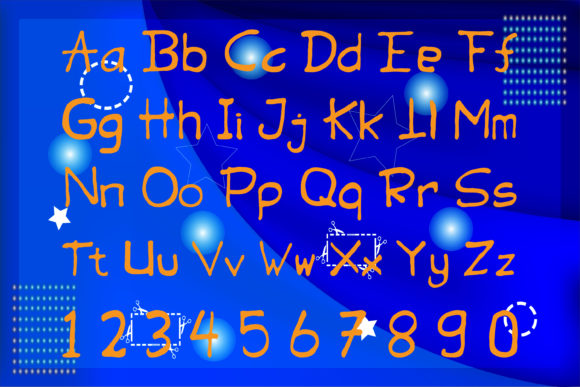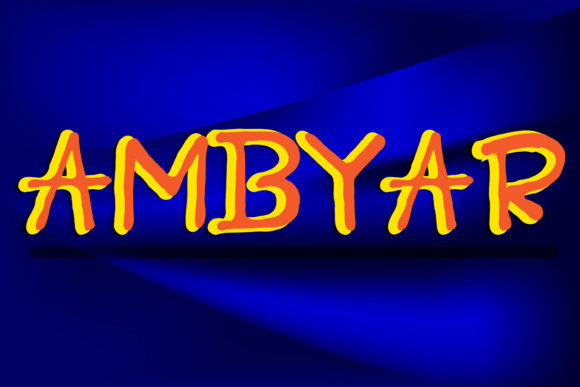
Discover the Quirkiness of Ambyar Font: Elevate Your Designs with this Unique Display Font
Are you tired of using the same old fonts in your designs? Look no further than Ambyar Font, a unique and interesting display font that’s sure to add a touch of personality to your projects. A little bit quirky, Ambyar Font looks incredibly adept on a wide variety of contexts, making it a versatile addition to any designer’s toolkit.
What Makes Ambyar Font So Special?
Ambyar Font is a one-of-a-kind display font that’s designed to grab attention. Its quirky and playful design makes it perfect for use in headlines, titles, and other display text. But what really sets Ambyar Font apart is its versatility. Whether you’re designing a logo, a poster, or a website, Ambyar Font can be used in a wide range of contexts to add visual interest and personality.
Key Features of Ambyar Font
- Unique and quirky design: Ambyar Font has a distinctive look that’s sure to make your designs stand out.
- Highly versatile: Ambyar Font can be used in a wide range of contexts, from logos and posters to websites and social media graphics.
- Display font: Ambyar Font is designed specifically for use in display text, making it perfect for headlines, titles, and other prominent text.
- Easy to read: Despite its quirky design, Ambyar Font is surprisingly easy to read, making it perfect for use in a variety of applications.
How to Use Ambyar Font in Your Designs
Ambyar Font is incredibly easy to use in your designs. Here are a few tips to get you started:
- Use it as a headline font: Ambyar Font is perfect for use in headlines and titles, where its quirky design can really make an impact.
- Pair it with a simple font: Ambyar Font is a bold and attention-grabbing font, so it’s best paired with a simpler font for body text.
- Experiment with different colors: Ambyar Font looks great in a wide range of colors, so don’t be afraid to experiment and find the perfect hue for your design.
Why Designers and Crafters Love Ambyar Font
Ambyar Font has quickly become a favorite among designers and crafters, and it’s easy to see why. Here are just a few reasons why:
- It’s unique: Ambyar Font is a one-of-a-kind font that’s sure to make your designs stand out.
- It’s versatile: Ambyar Font can be used in a wide range of contexts, making it a great addition to any designer’s toolkit.
- It’s easy to use: Ambyar Font is incredibly easy to use in your designs, even for those who are new to working with fonts.
| Font Name | Ambyar Font |
| Author | Mahesa Design |
Whether you’re a seasoned designer or just starting out, Ambyar Font is a great addition to any toolkit. Its unique design and versatility make it perfect for use in a wide range of contexts, from logos and posters to websites and social media graphics. So why settle for boring, generic fonts when you can add a touch of personality to your designs with Ambyar Font?